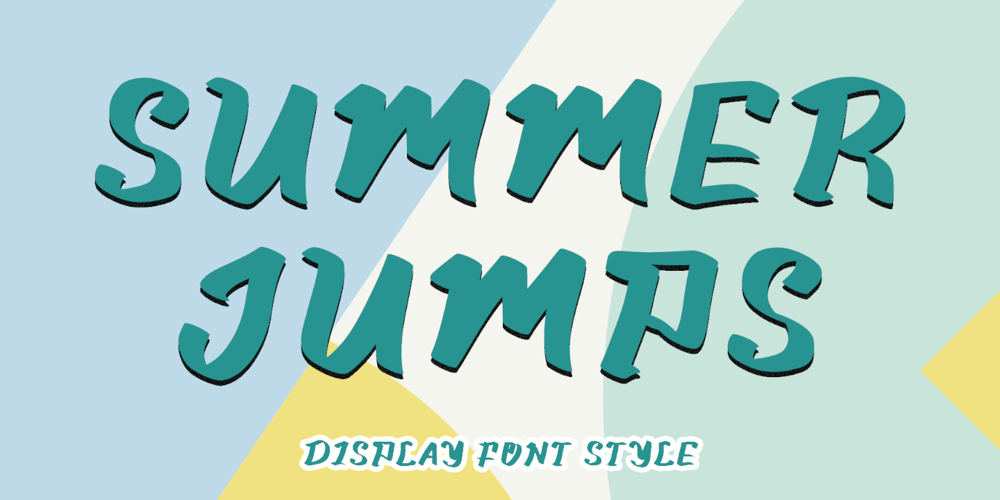
Summer Jumps
Summer Jumps font
Summer Jumps Font Family was designed by Isroni Yoga Prasetya and published by Yoga Letter. Summer Jumps contains 1 styles and family package options. “Summer Jumps” is a very elegant display font. This font is equipped with uppercase, lowercase, numerals, punctuations and multilingual support. Very suitable for summer, camping, vacation, parties, logos, father’s day, Christmas, weddings, back to school and others.